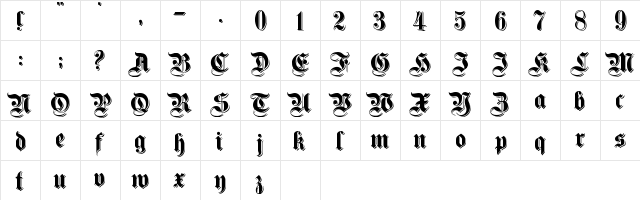
ShadowedGermanica Regular
Design Context for ShadowedGermanica Typeface
ShadowedGermanica brings ornamental detail and strong personality to headlines and identities, where visual impact matters more than quiet functionality.
Font Pairing: Pair with a clean neutral sans-serif for body copy to let ShadowedGermanica's character lead without overwhelming the composition.
Pro Tip: Use ShadowedGermanica exclusively at display sizes — it was designed to be seen, not read at length. Let a neutral companion handle body copy.